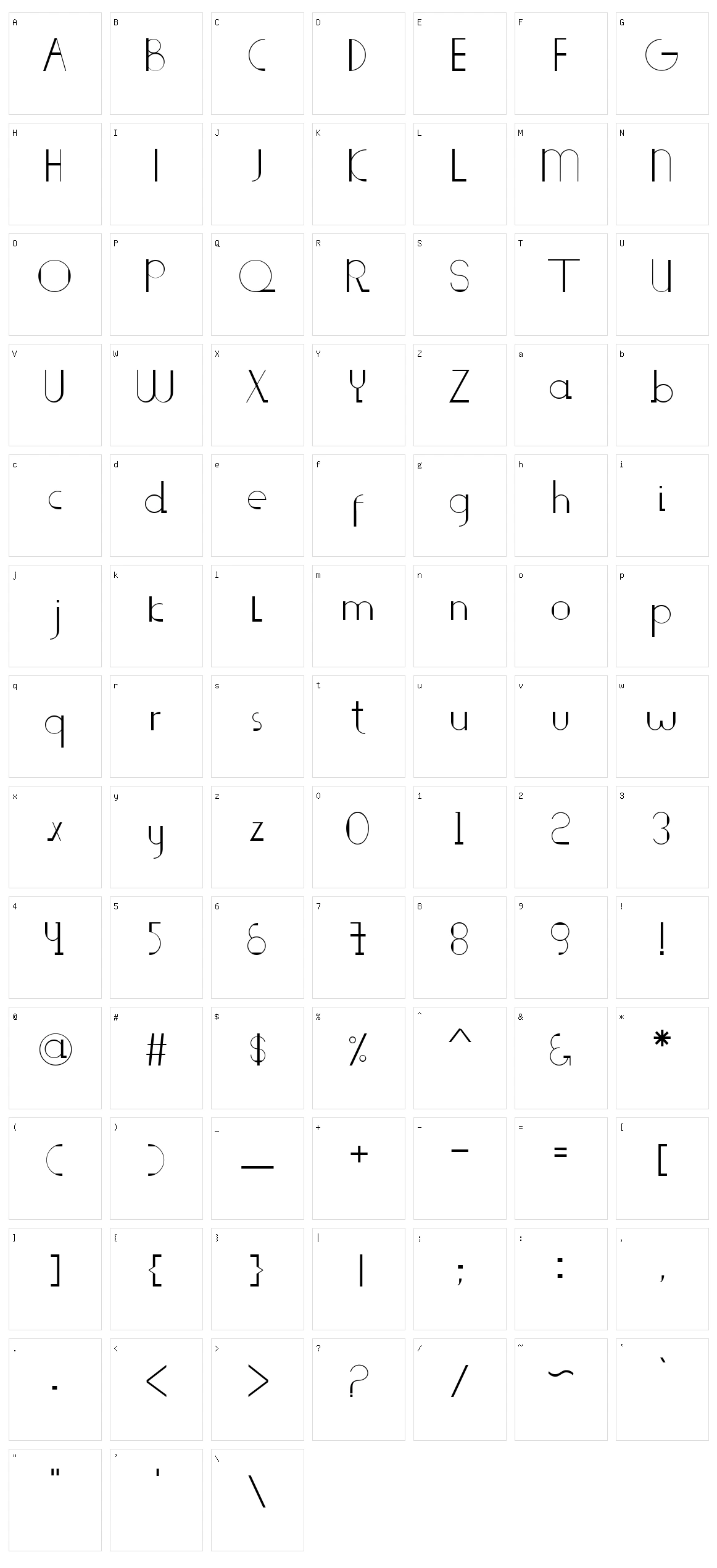
The free font Saleng is carefully designed by belovestudio, showcasing a thoughtful balance of creativity and usability and falls under the Retro font style. When you download the ZIP file, it contains only 51.84 KB of font files, making it lightweight and quick to download. Please review the license details below to understand permitted usage and distribution rights. If license information is not available, we recommend using this font for personal projects only or contacting the author directly for commercial usage permissions.